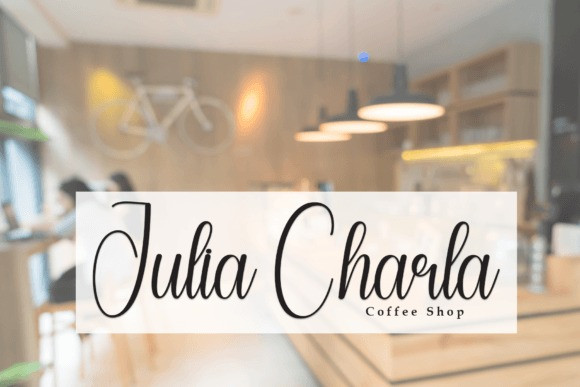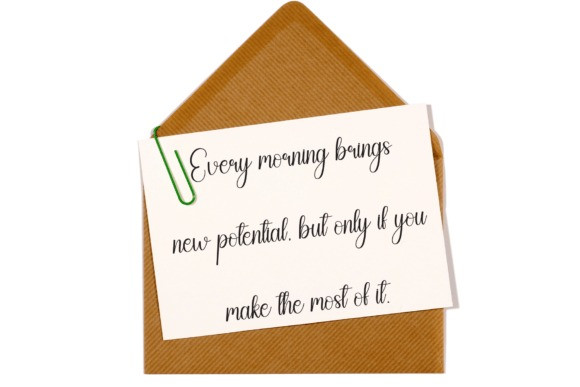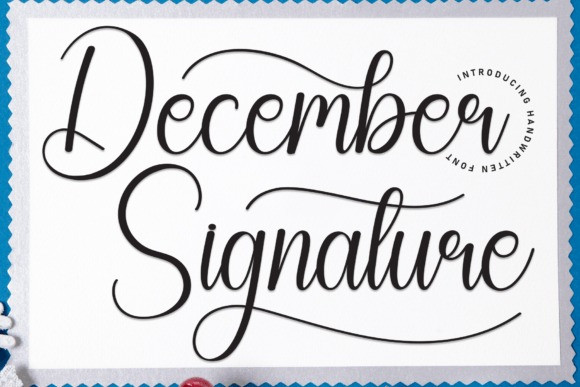
December Signature Font
December Signature Font is a refined handwritten font adorned with exquisite swashes, adding a touch of elegance to your text. With graceful strokes and a sophisticated charm, this font is perfect for creating a signature look in invitations, cards, or any design project where a touch of beauty is desired. DecemberSignature effortlessly combines simplicity with sophistication, making it an ideal choice for those seeking a graceful and timeless aesthetic.